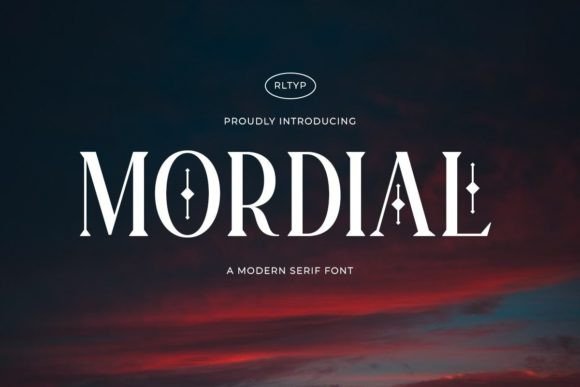
Introducing Mordial Font: A Timeless Serif Font for Culinary Charm
Welcome to the world of Mordial Font, a modern serif font born from the desire to elevate your culinary designs. Inspired by the elegance of food packaging, Mordial is the perfect marriage of sophistication and approachability.
With Mordial Font, you hold the key to unlocking a world of gastronomic storytelling. Its lowercase and slanted versions dance together, adding a touch of whimsical allure to your creations. Whether you're designing logos, packaging, menus, or any food-related project, Mordial promises to make your vision come alive.
Mordial Font: A Fusion of Beauty and Functionality
Mordial Font is not just another font; it's an experience that will transform your designs. Its clean lines and exquisite curves capture the essence of culinary excellence, inviting your audience to savor every delectable detail.
Imagine your logo, etched in Mordial Font, becoming an iconic symbol of culinary artistry. Picture your packaging, adorned with Mordial's elegance, drawing customers in with its timeless allure. With Mordial, you'll craft designs that transcend the ordinary and leave an indelible mark on your customers' minds.
Mordial Font: Your Culinary Canvas
With Mordial Font at your disposal, you'll discover a limitless canvas for your creativity. Its versatile nature allows you to explore a wide range of design styles, from classic and understated to bold and eye-catching.
Compose menus that tantalize taste buds with Mordial's sophisticated charm. Craft greeting cards that convey warmth and heartfelt messages. Create books and magazines that inspire readers with their culinary wisdom. With Mordial as your font of choice, the possibilities are endless.